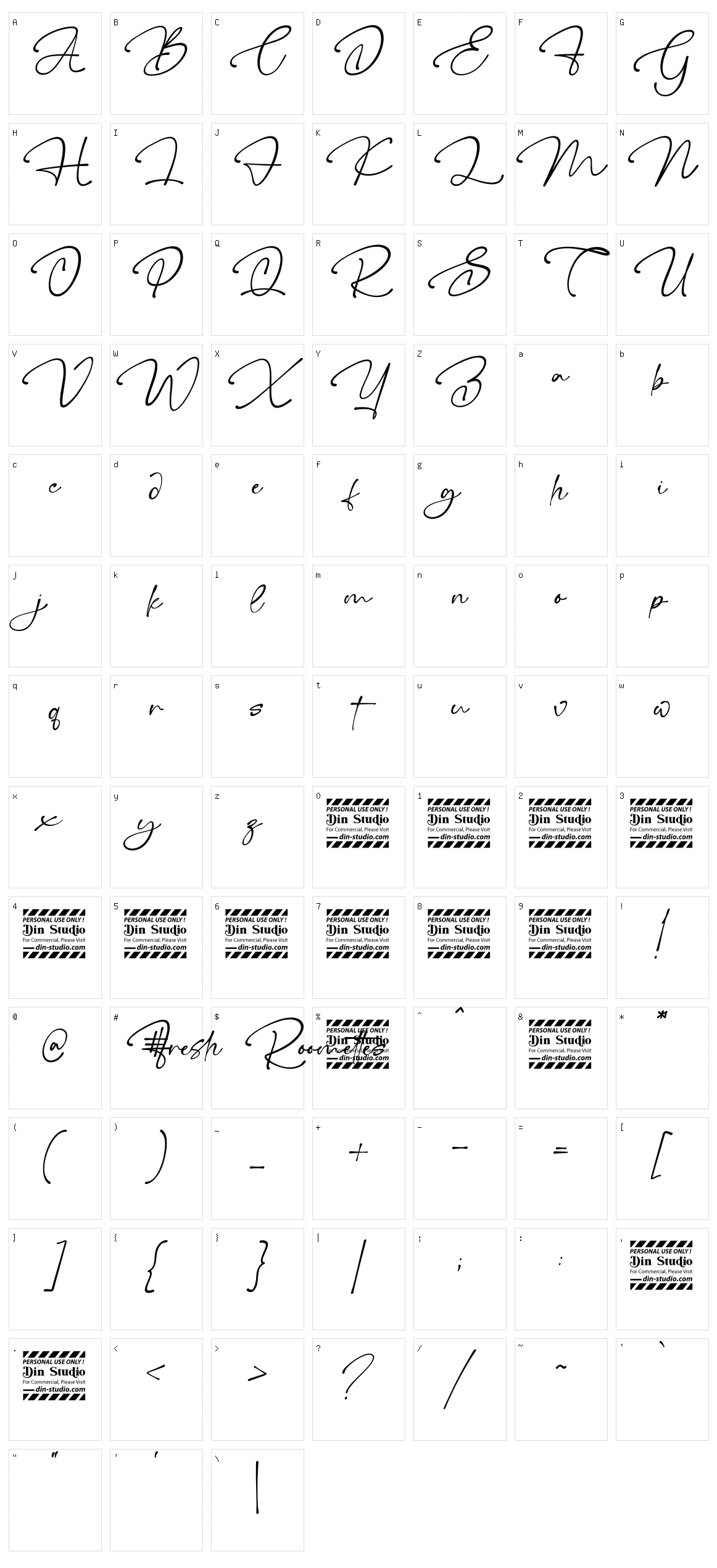
The free font Fresh Roomettes is carefully designed by Din Studio, showcasing a thoughtful balance of creativity and usability and falls under the Script font style. When you download the ZIP file, it contains only 281.4 KB of font files, making it lightweight and quick to download. Please review the license details below to understand permitted usage and distribution rights. If license information is not available, we recommend using this font for personal projects only or contacting the author directly for commercial usage permissions.